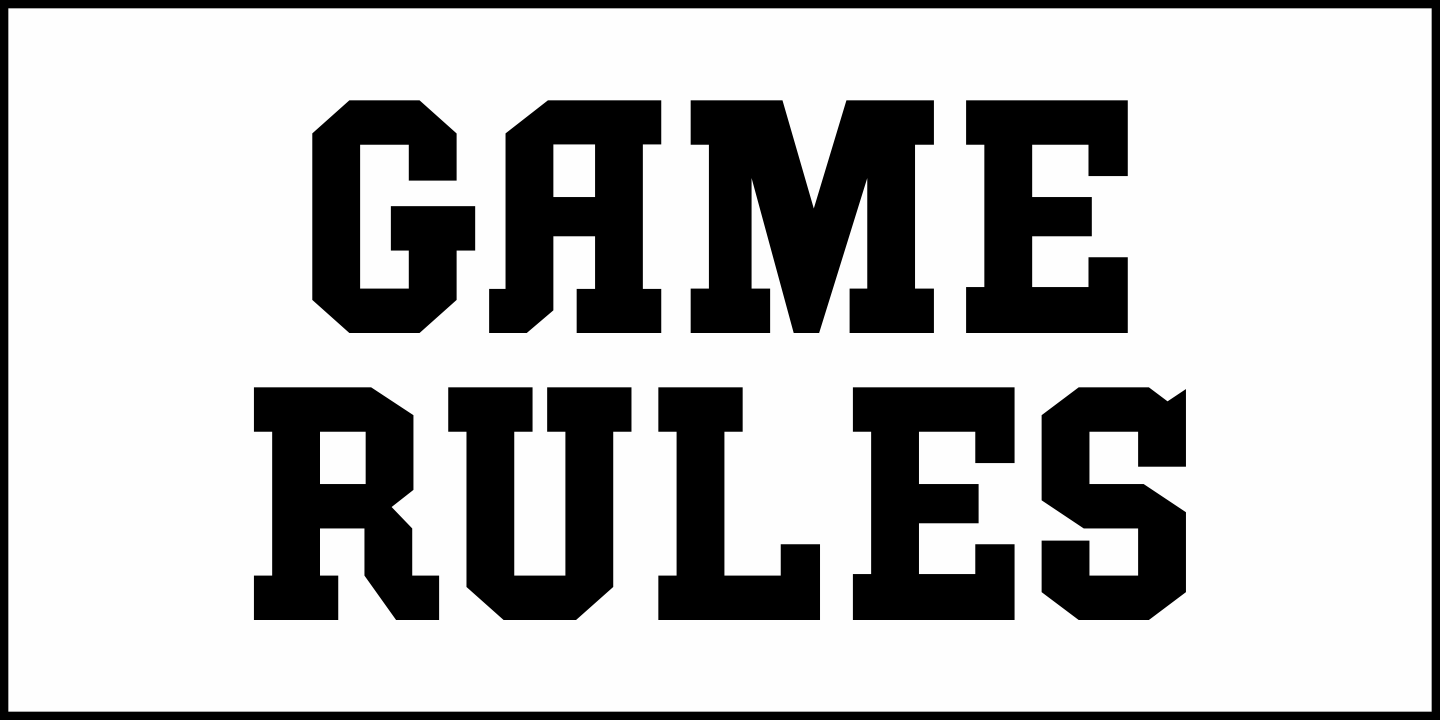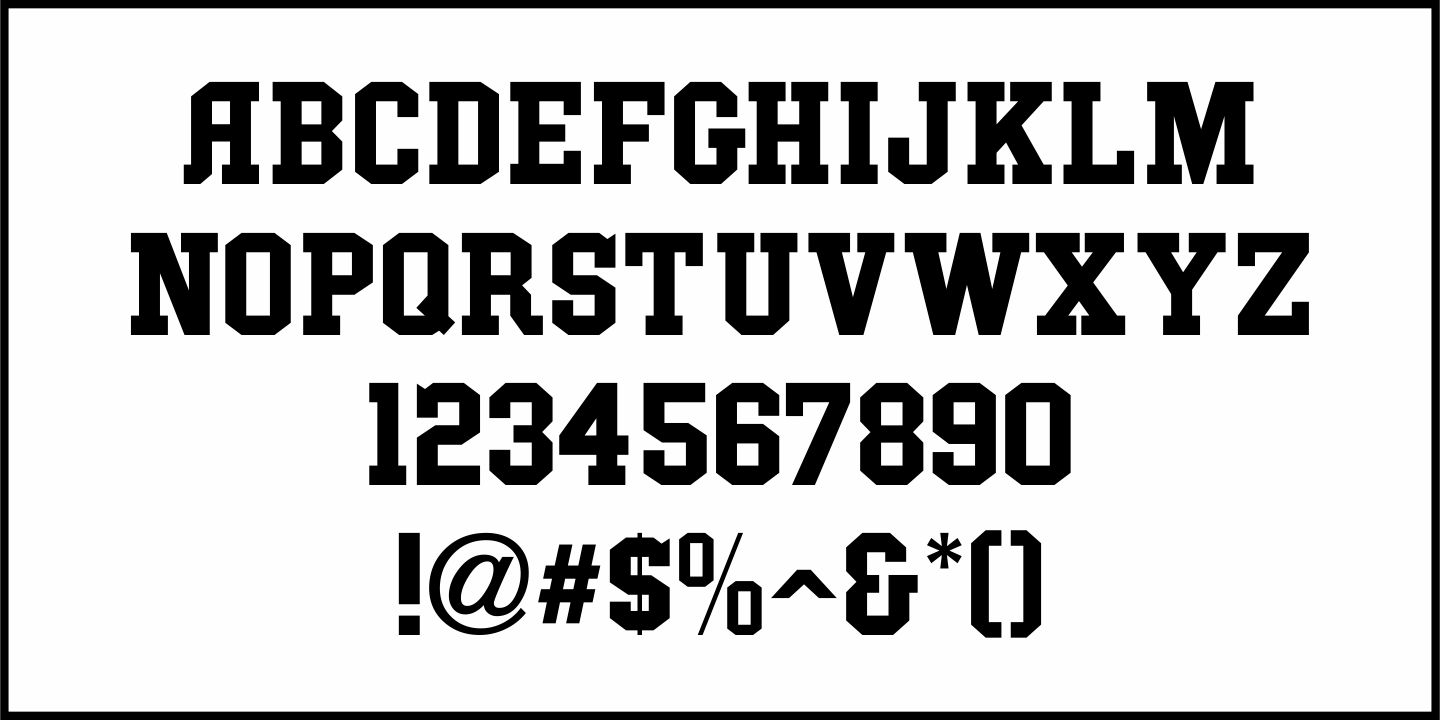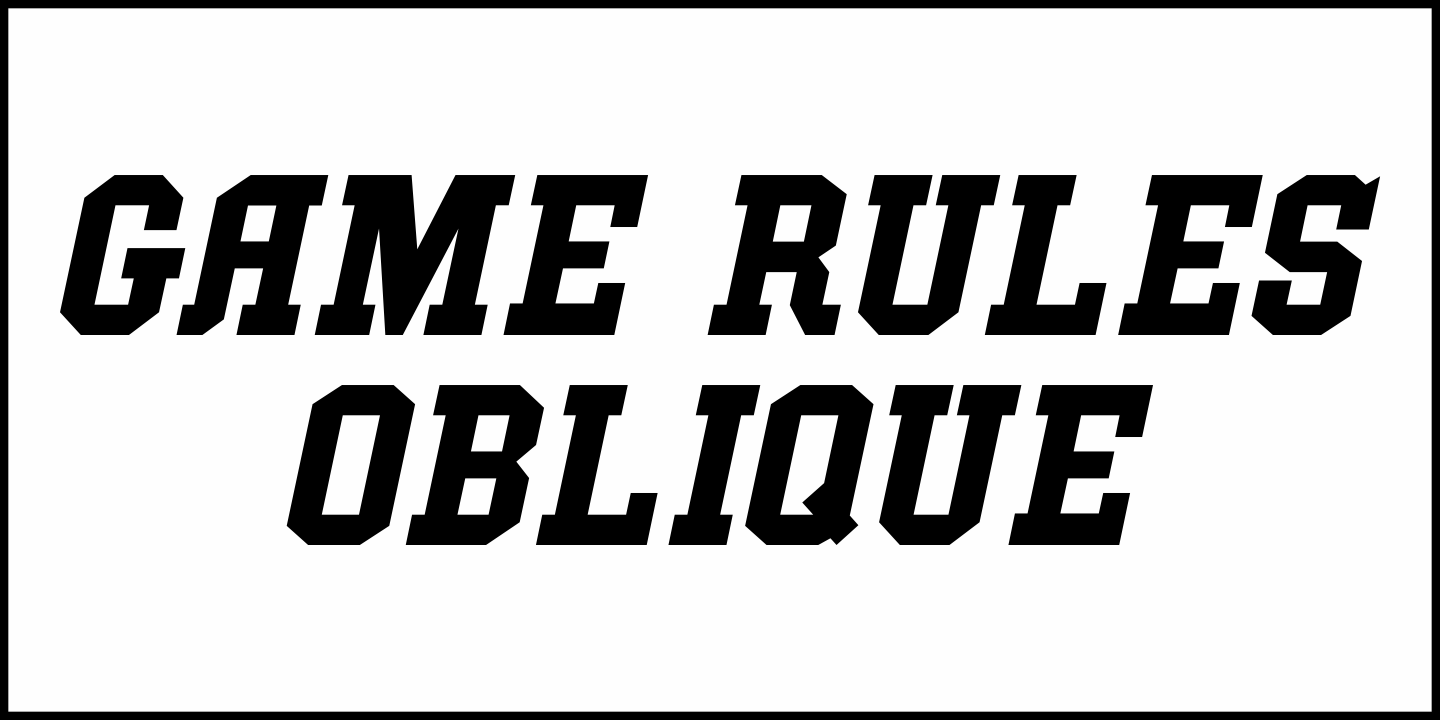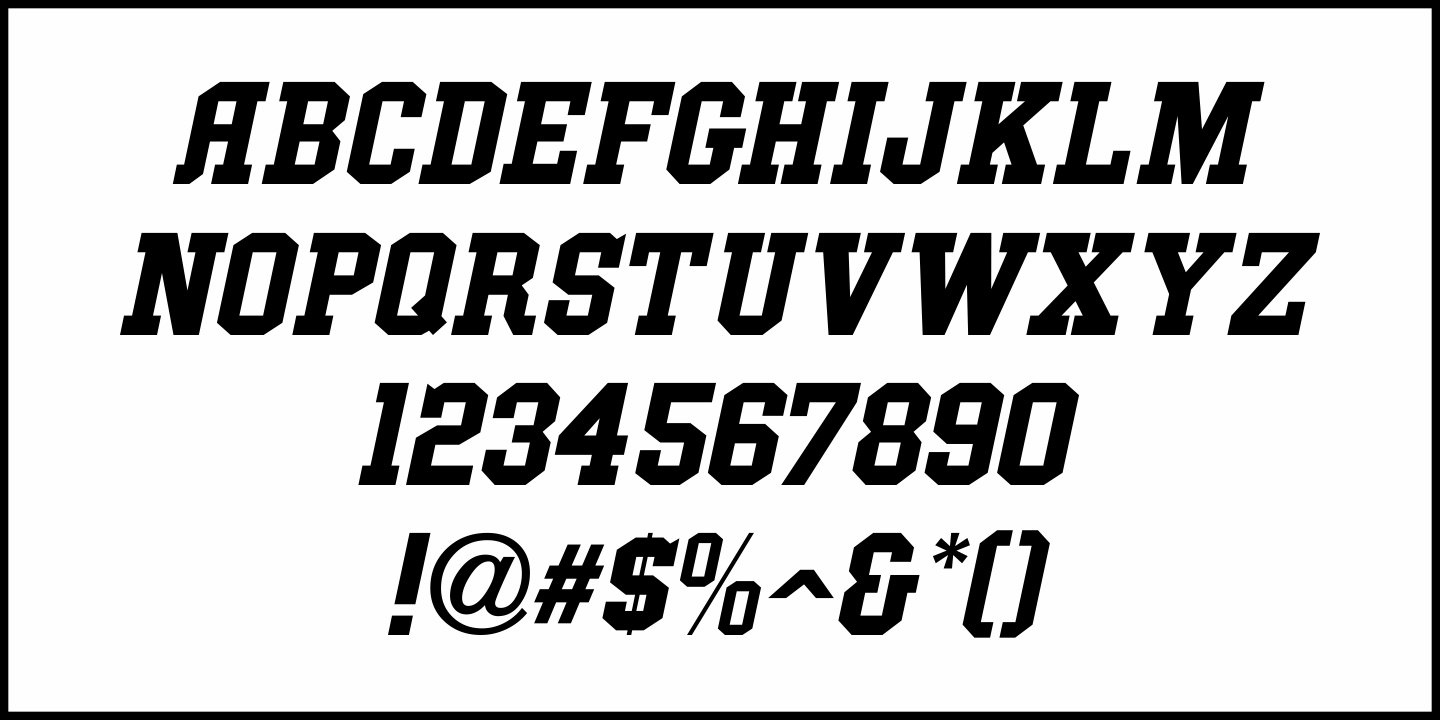
Game Rules
While this bold, chamfered typeface may look like a sports font, it actually came from the opening credits for the 1955 Western film “The Man from Bitter Ridge”.
Game Rules JNL is available in both regular and oblique versions.